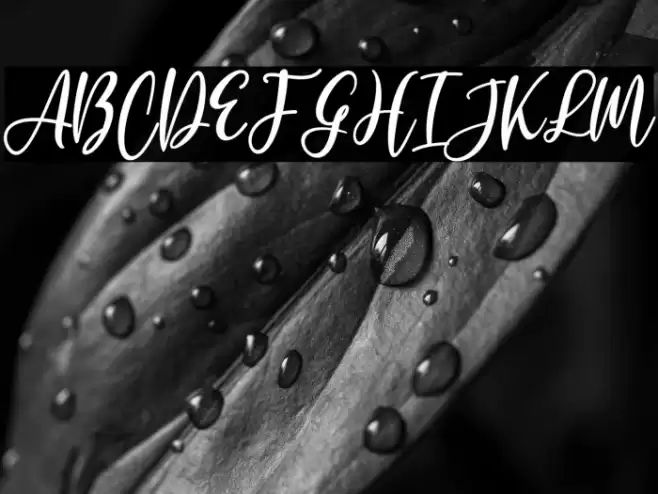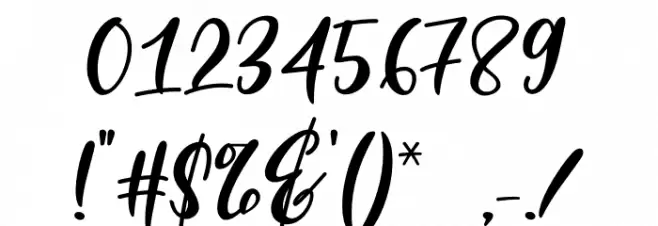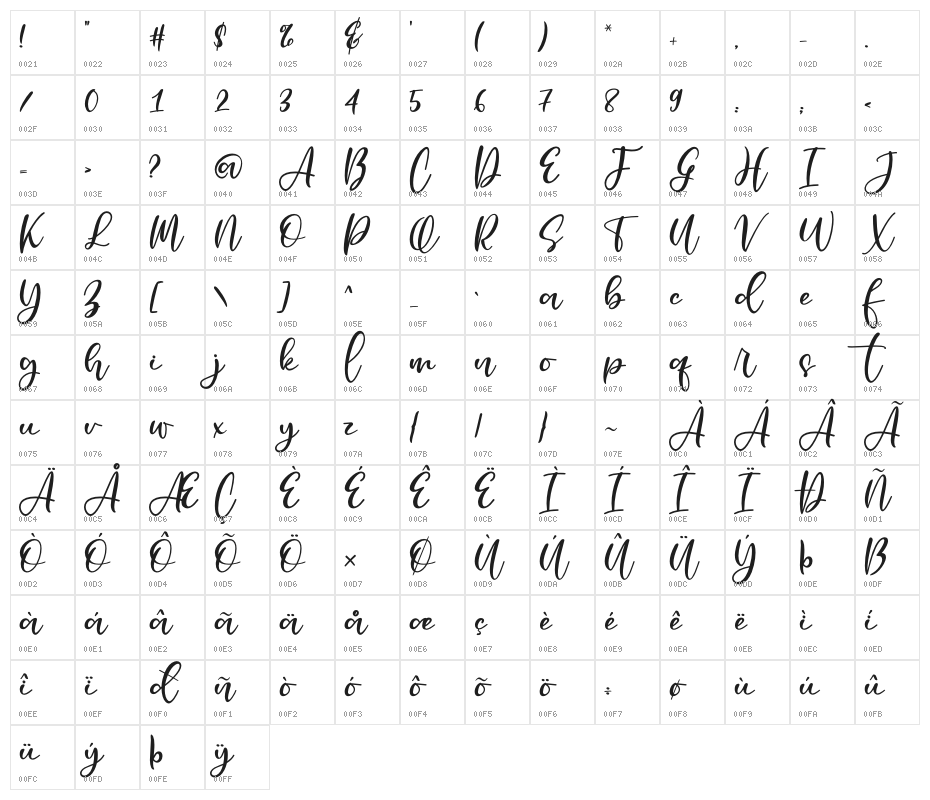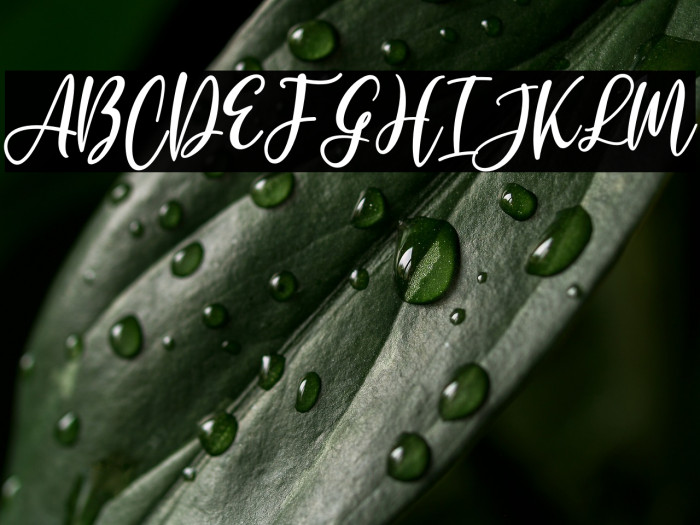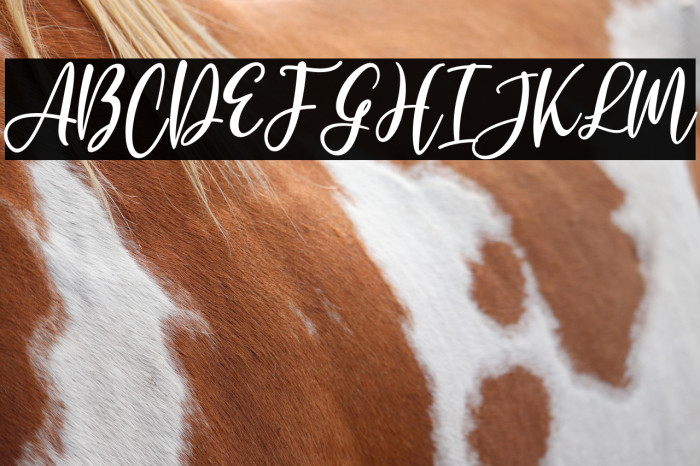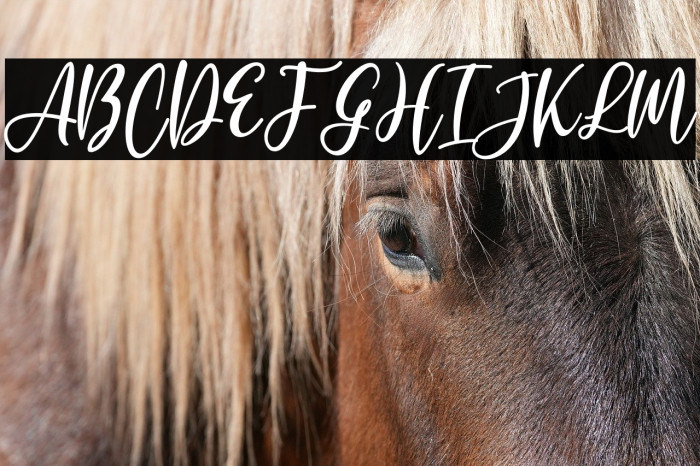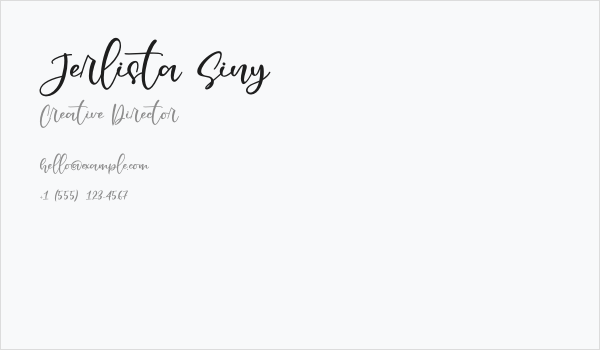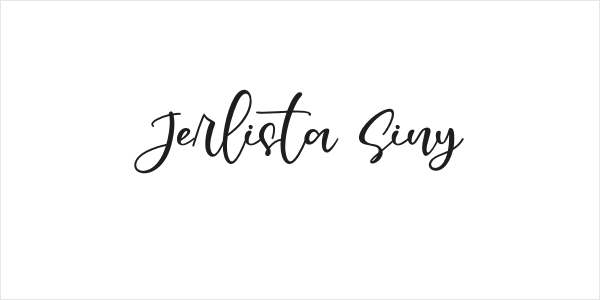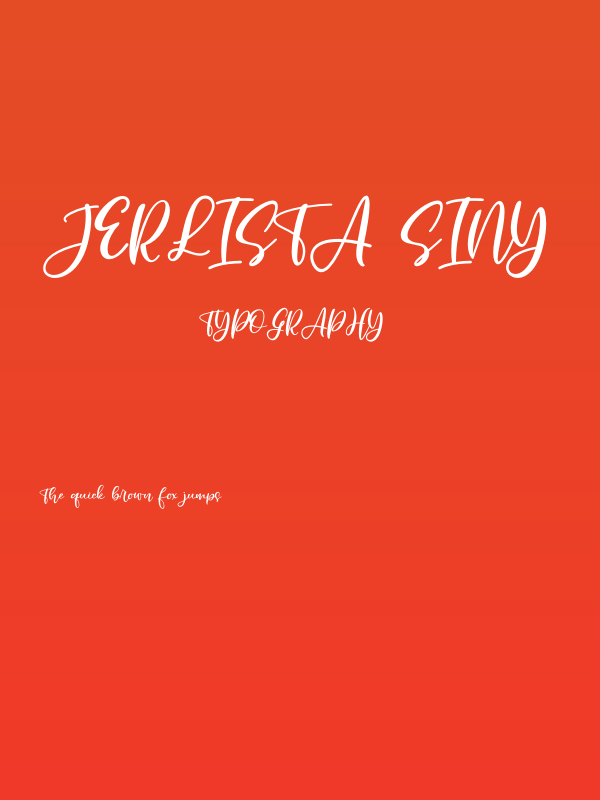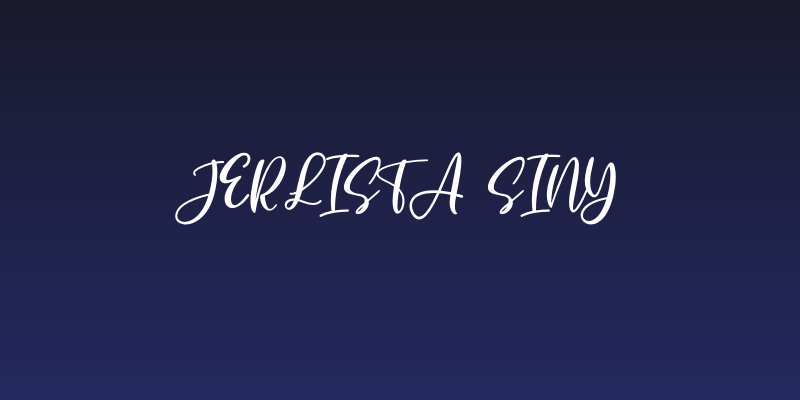
Jerlista Siny Font
Jerlista Siny Description
This font exudes a lively and expressive character, featuring a handwritten script style with fluid, cursive strokes. The uppercase letters are bold and dynamic, with a playful yet elegant flair, while the lowercase letters maintain a consistent flow, enhancing readability. The numerals are well-integrated, matching the overall aesthetic with their rounded and smooth forms. Special characters are creatively designed, adding to the font's versatility. The overall impression is one of sophistication and charm, making it suitable for a variety of creative projects.
A lively handwritten script font with expressive, fluid strokes from Uncategorized fonts.
- Font: Jerlista Siny
- Proposed Projects: Ideal for wedding invitations, greeting cards, branding, and social media graphics.
- Use Case: Logos, Headlines, Invitations